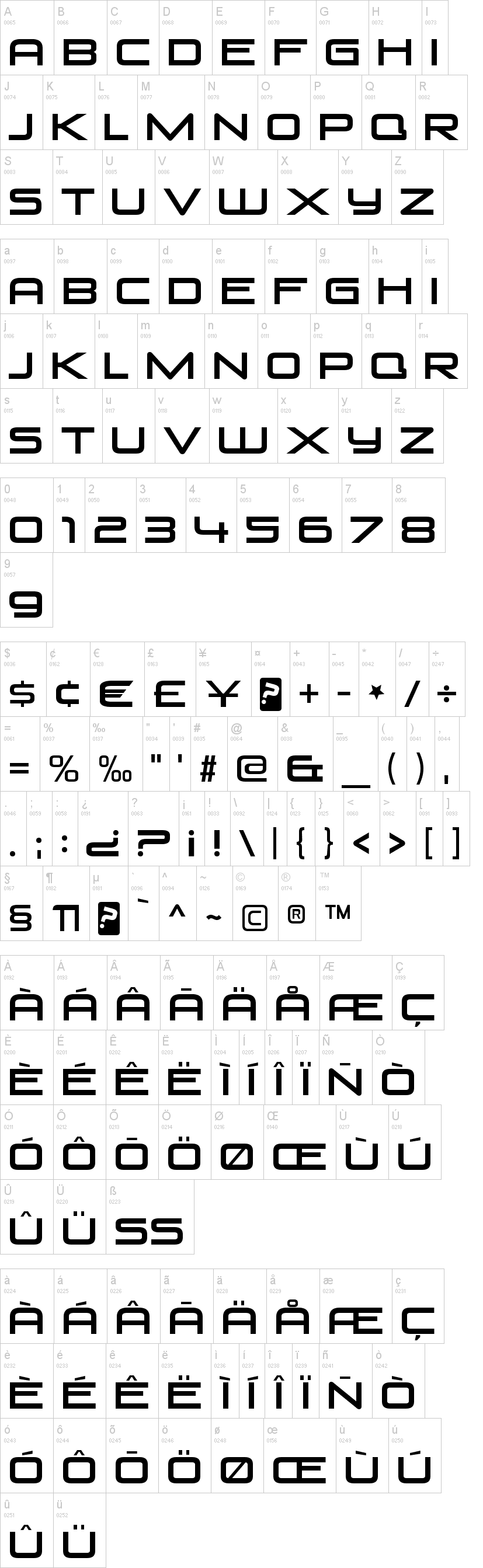
Шрифт Venus Rising
Venus Rising is a square techno font. Sure, youve seen a lot of square techno fonts but youve never seen one with the amount of pure soul that Venus Rising has. Feel the funk. Don't forget to read the files inside the zip for details. Updated in 2012.